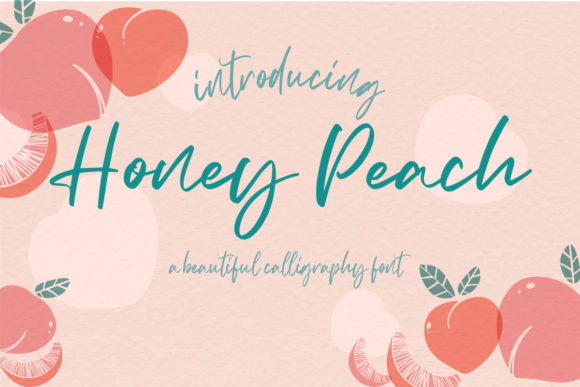
Introducing Honey Peach Font, a captivating script font meticulously crafted to infuse your designs with an aura of grace and sophistication. This stunning font, the brainchild of samgraphy.co, has been meticulously designed to cater to the needs of modern creatives seeking fonts for Instagram, calligraphy scripts for personal projects, and design enthusiasts looking to transform concepts into masterpieces.
Unleash your creativity and embark on a visual journey with Honey Peach Font. Its elegant curves and graceful swashes evoke a sense of timeless beauty and heartfelt charm, adding a touch of refinement to any project. Whether you're creating captivating social media graphics, designing heartfelt invitations, or crafting heartfelt letters, Honey Peach Font will effortlessly elevate your designs, leaving a lasting impression on your audience.
Delve into the world of Honey Peach Font and discover its versatility. With its ability to seamlessly harmonize with various aesthetics, this font is your go-to choice for an array of projects. From Magazine Design to branding campaigns, Honey Peach Font effortlessly adapts, becoming an integral part of your creative vision. Let the flowing lines and enchanting characters of Honey Peach Font captivate your audience, leaving them enthralled by your design prowess.
Elevate your designs to new heights with Honey Peach Font. Its versatility and enchanting appeal have made it a favorite among top designers and creatives worldwide. Join the ranks of those who have fallen in love with its timeless beauty and transform your projects into works of art.